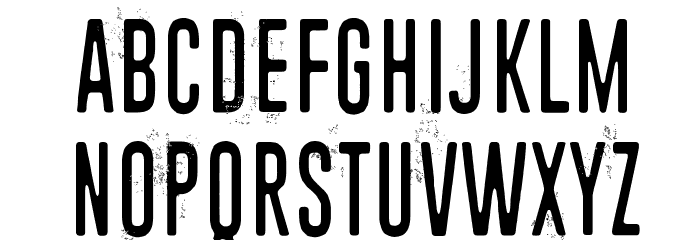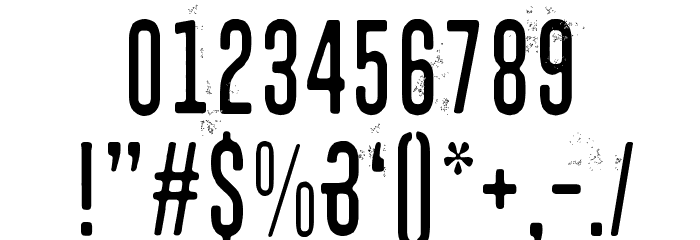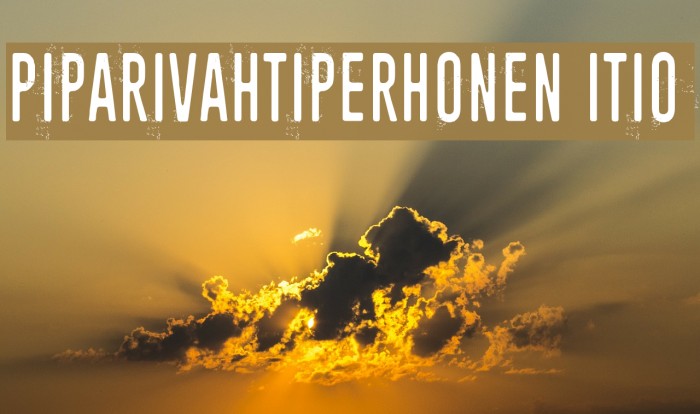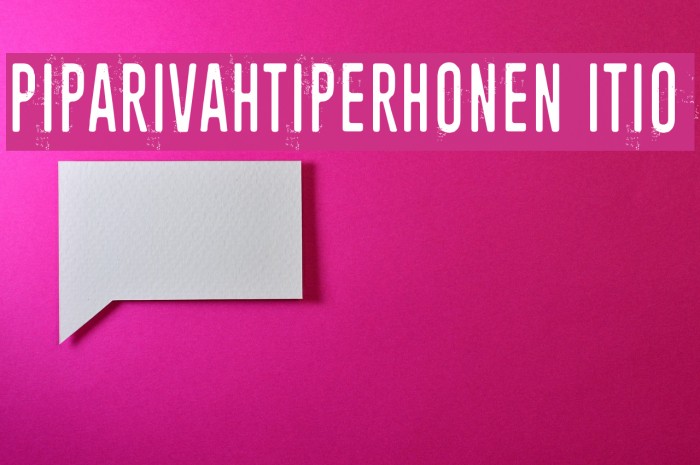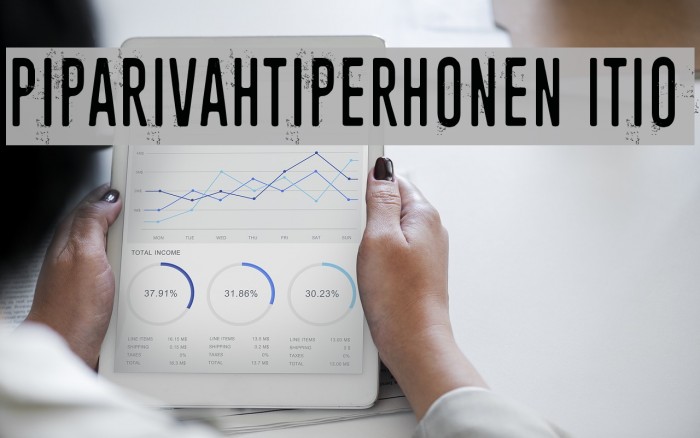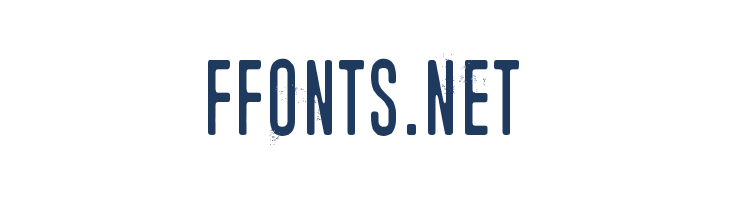
Piparivahtiperhonen Itio Font
This font features a bold, condensed style with a slightly distressed texture, giving it a rugged and vintage appearance. The uppercase letters are tall and narrow, with consistent stroke widths that contribute to a clean and structured look. The lowercase letters maintain the same condensed form, ensuring uniformity across the typeface. Numbers and special characters are designed to match the overall aesthetic, providing a cohesive set for various uses. The distressed texture adds character, making it suitable for projects that require a touch of nostalgia or a handcrafted feel.
A bold, condensed font with a distressed, vintage texture.
- Proposed Projects: Ideal for posters, branding, packaging, and any design needing a vintage or rugged aesthetic.
- Overall Style: Vintage